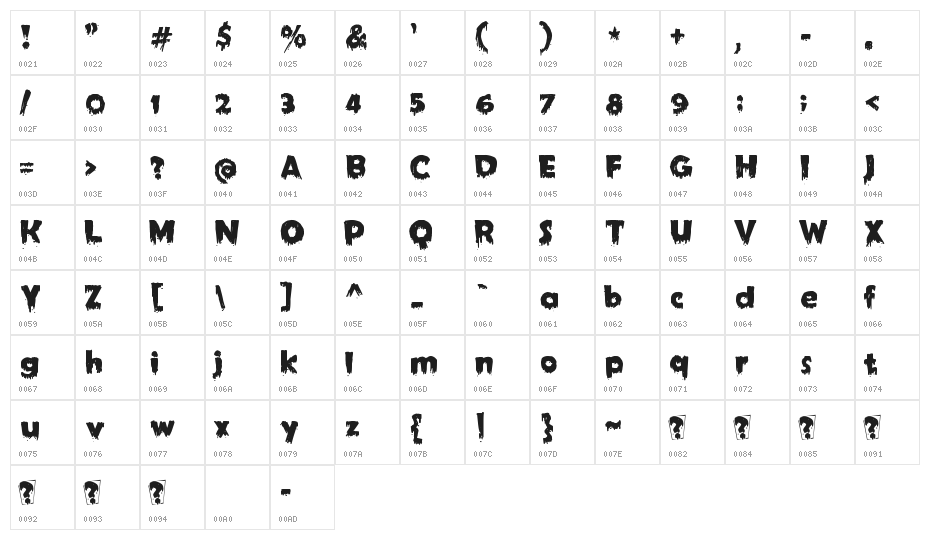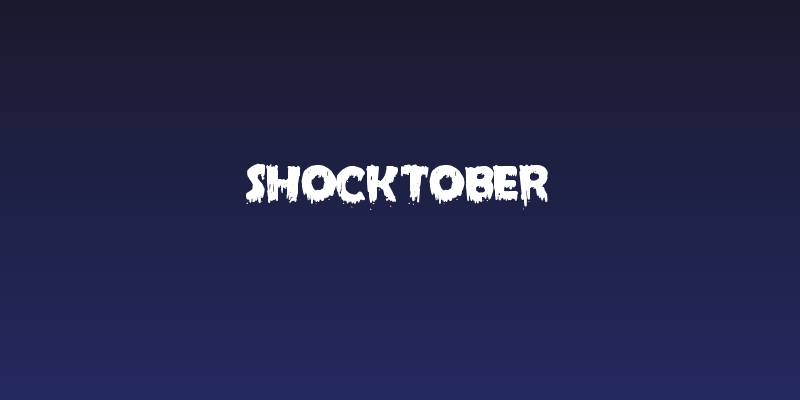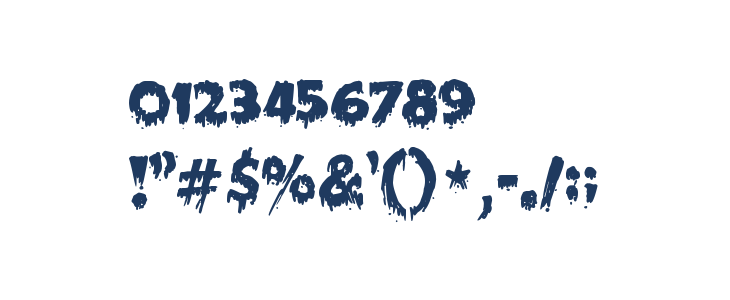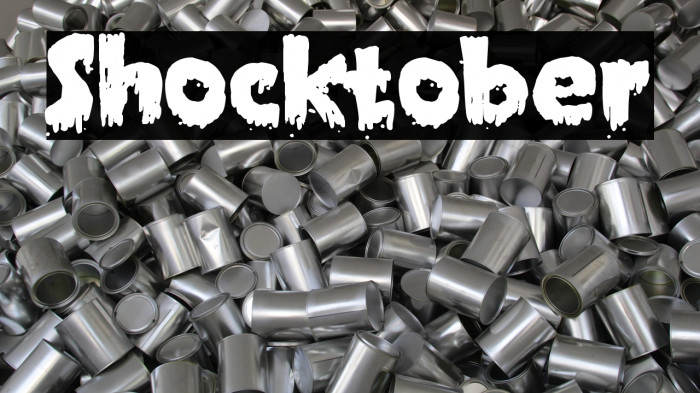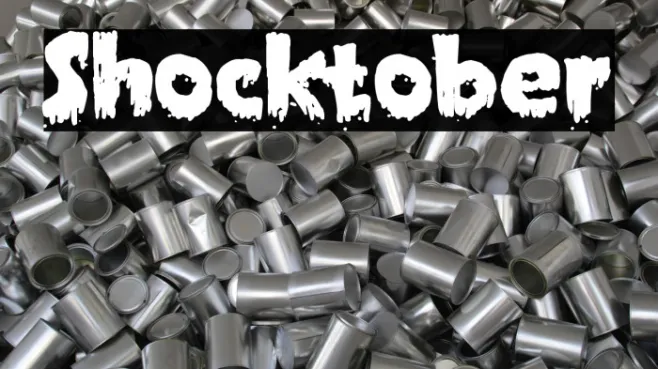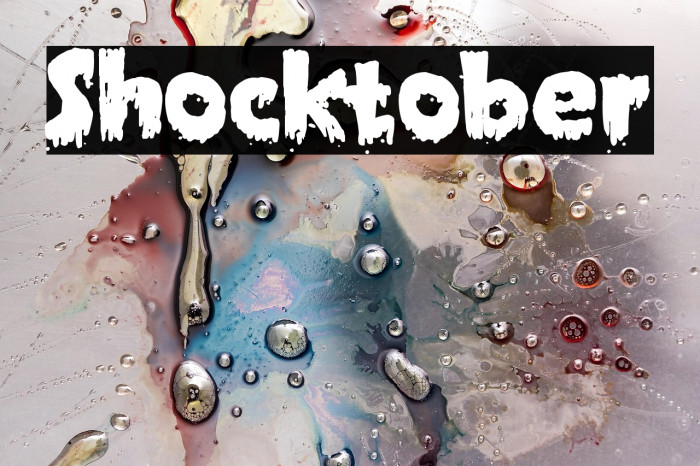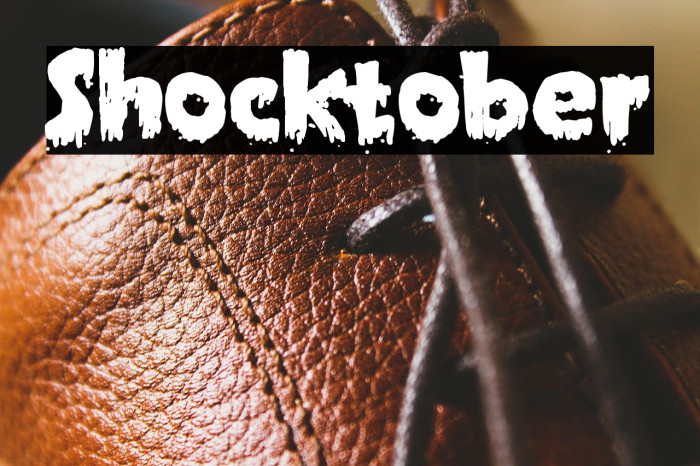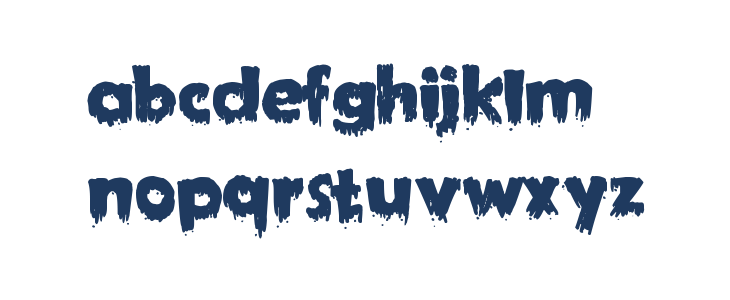
Shocktober Font
Shocktober Description
This font features a bold and dramatic style, characterized by its dripping, jagged edges that evoke a sense of horror and suspense. The uppercase and lowercase letters maintain a consistent thickness, with irregular, uneven outlines that give the impression of melting or bleeding. The numbers and special characters follow the same theme, adding to the overall eerie and unsettling aesthetic. This font is perfect for creating a spooky atmosphere, making it ideal for Halloween-themed projects or any design that requires a touch of the macabre.
| Use Case | Headlines, Posters, Themed Events |
| Proposed Projects | Ideal for Halloween invitations, horror movie posters, haunted house flyers, and spooky-themed merchandise. |